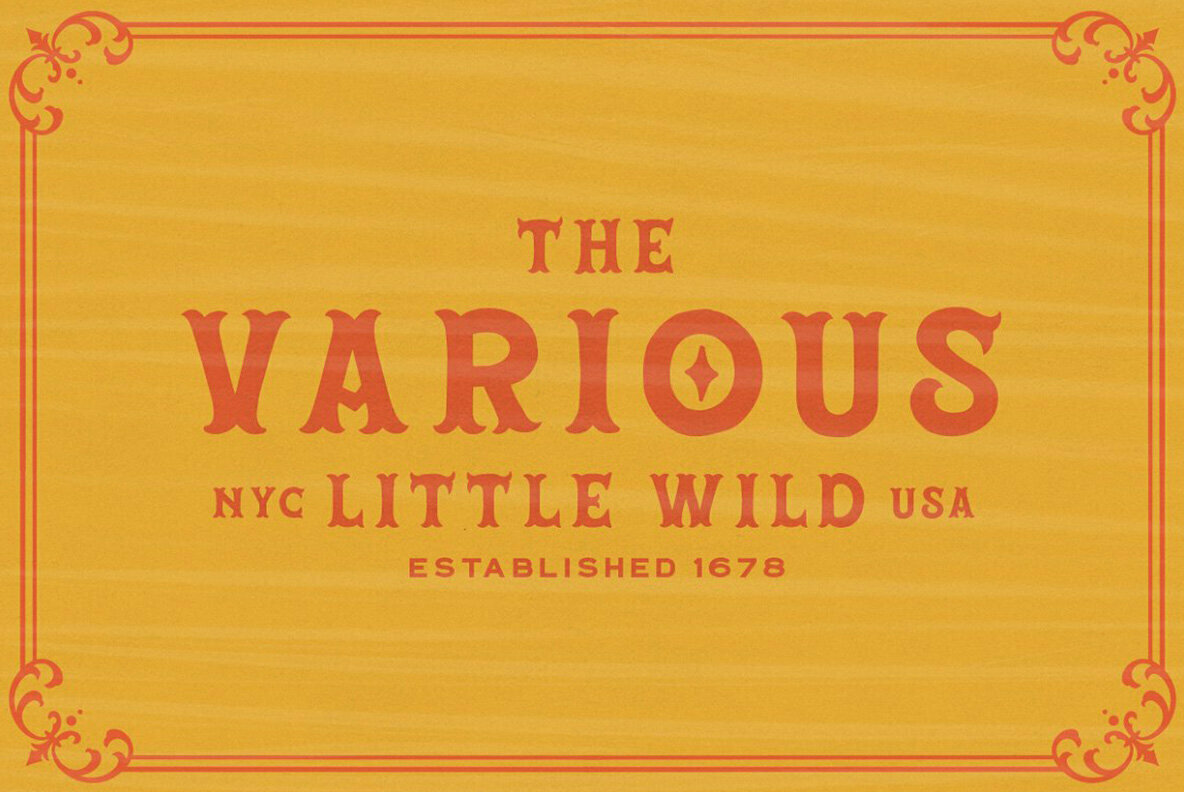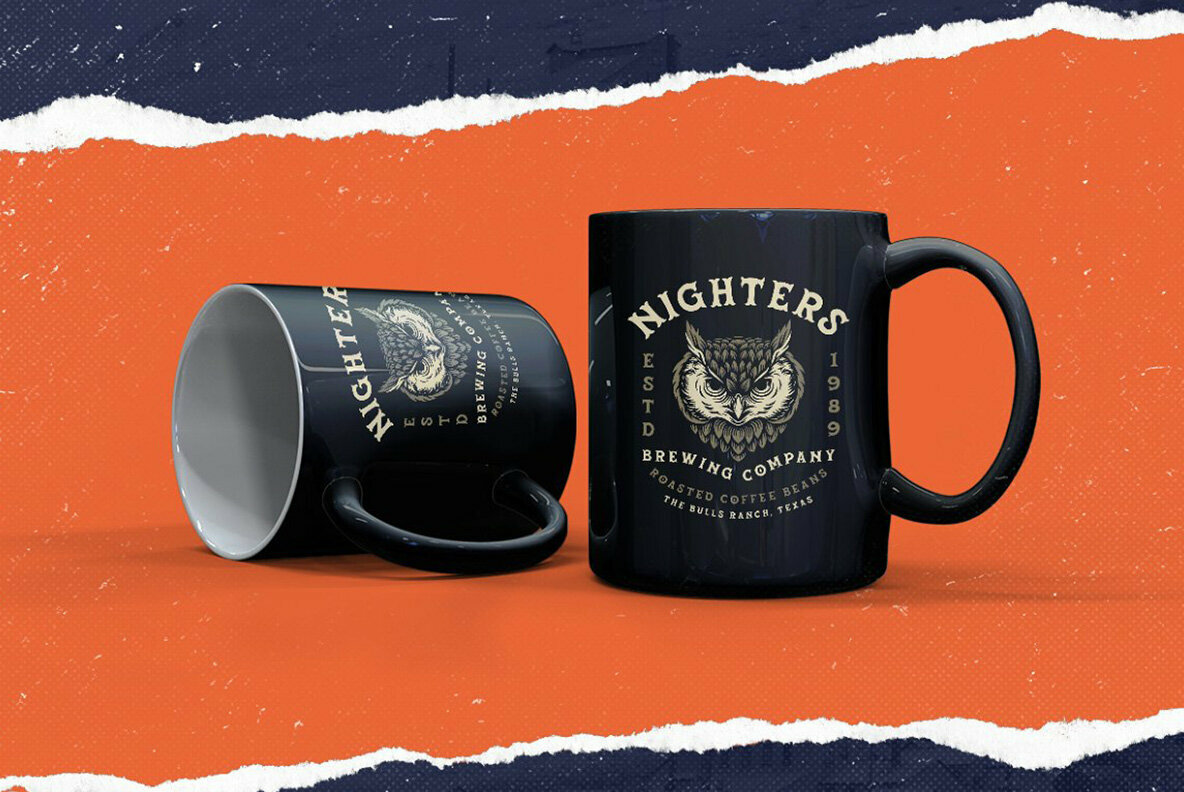
Dehors Display Typeface Font
Dehors Display
Dehors Display Typeface captures the essence of classic Western design with a modern flair, making it an ideal choice for a variety of creative projects. This typeface brings an authentic charm to logos, formal invitations, labels, magazines, books, greeting cards, and more. Its versatility in both formal and informal contexts ensures that your design projects convey sophistication and style. Embrace the full potential of this typeface by utilizing programs that support OpenType features and Glyphs panels, such as Adobe applications and Corel Draw. This ensures seamless access to its extensive array of design possibilities.Dehors Display Typeface: Classic Western Elegance